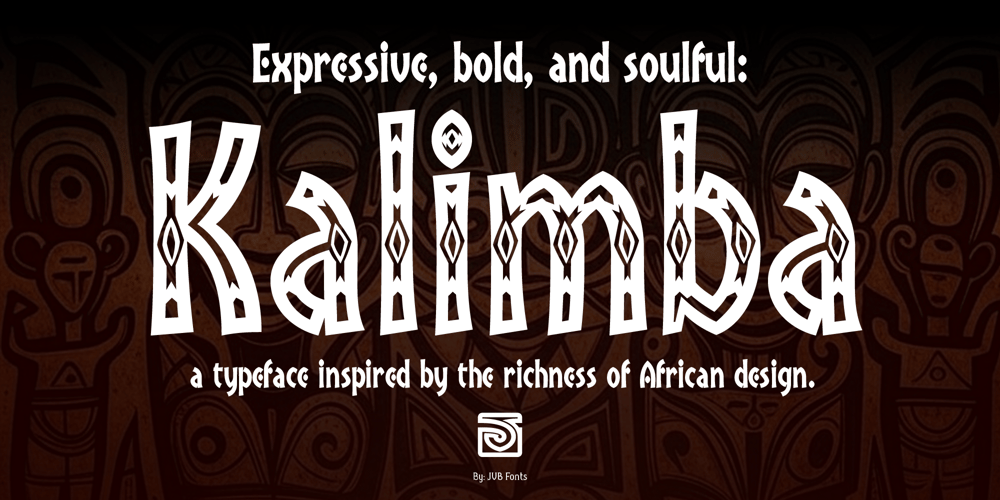
Kalimba Font Family was designed by John Vargas Beltrán and published by JVB Fonts. Kalimba contains 4 styles and family package options. Kalimba (name of an African percussion musical instrument) is inspired from common simple shapes present in many visual elements of African and Afro-American cultures. With more than 500 glyphs, Kalimba can be used in European languages (central/east). The font includes some OpenType features as ligatures, fractions and ordinals among others. Recommended for logos, illustrations, games and more graphic design pieces that requires an African taste and essence.